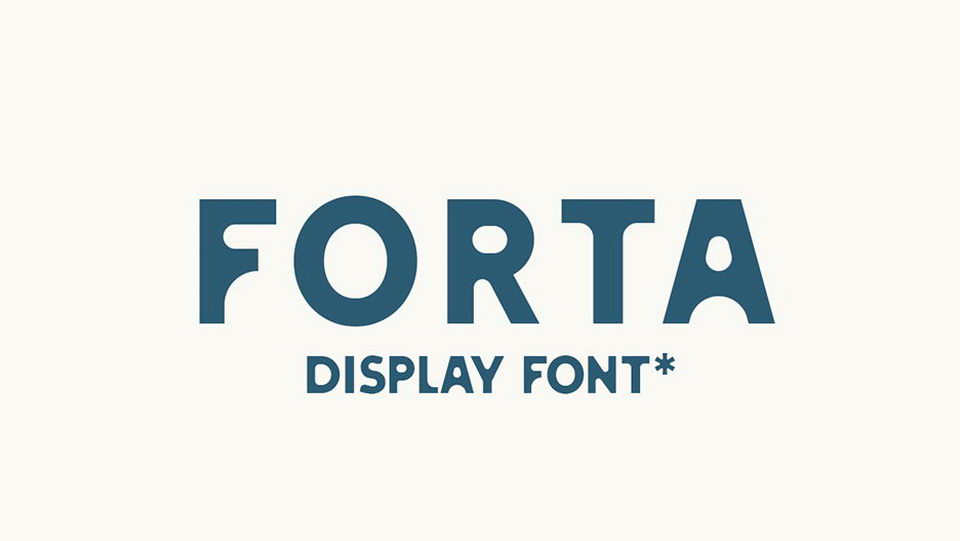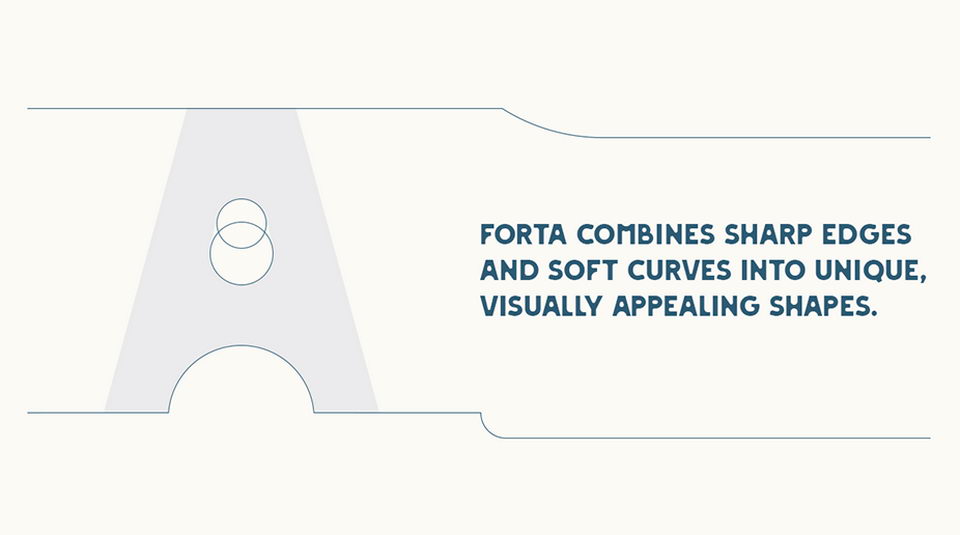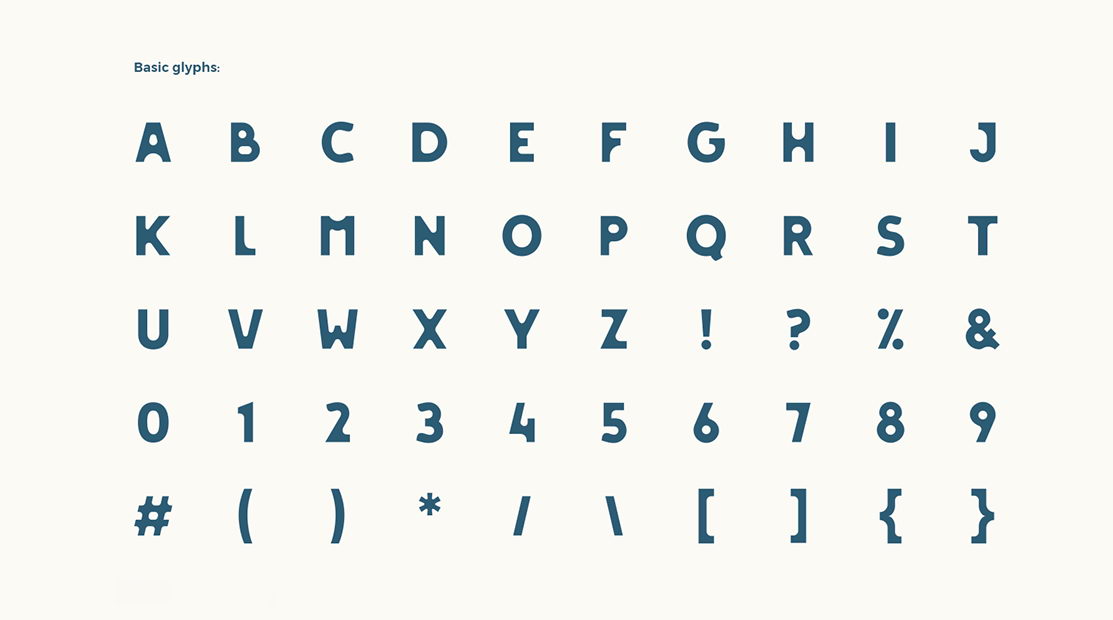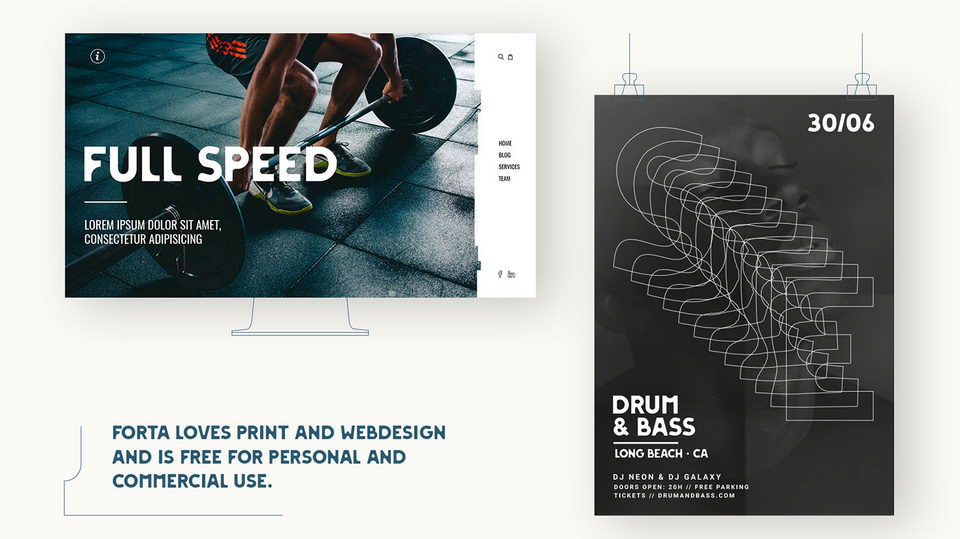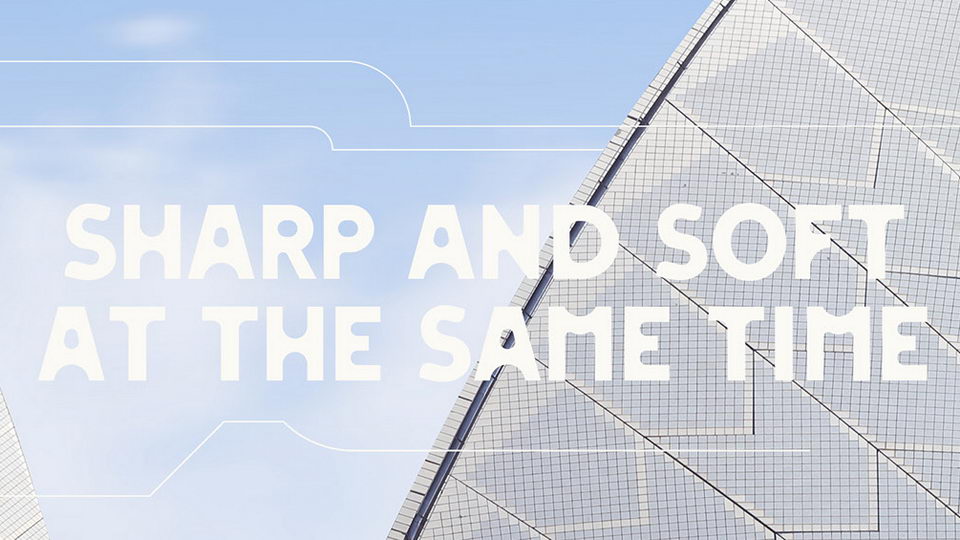
Forta is a bold all-caps display sans serif designed by Andrzej Wróż, with broad geometric proportions, low contrast, and a slightly softened finish. Its uppercase letters use heavy strokes, compact counters, rounded joins, and occasional sharp cuts, creating a structured but approachable rhythm. The spacing is tight enough for headline settings, while the simple shapes keep short words and titles readable at larger sizes. Forta has a modern, poster-like mood suited to logos, packaging, event graphics, editorial headings, badges, and short display text. It is licensed under the SIL Open Font License 1.1.